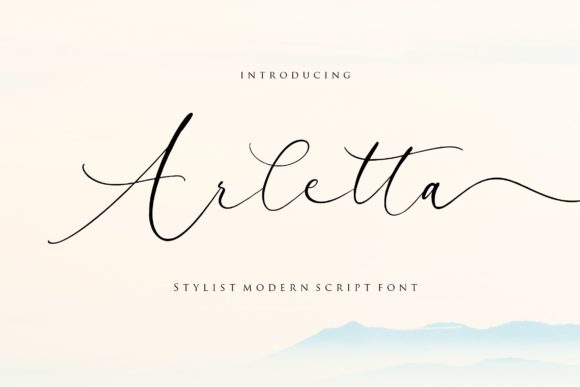
Introducing Arletta Font: A Lovely and Timeless Handwritten Font
Are you looking for a font that can add a touch of elegance and sophistication to your designs? Look no further than Arletta Font, a beautiful and timeless handwritten font that is perfect for creating eye-catching logos, branding, and quotes.
What Makes Arletta Font So Special?
Arletta Font is a unique and stunning font that is sure to make your designs stand out. Every letter has a beautiful and unique touch, which will bring your design to life. The font is carefully crafted to provide a classic and sophisticated look that is perfect for a wide range of design projects.
One of the standout features of Arletta Font is its handwritten style. The font is designed to look like it was written by hand, with a natural and fluid feel that is perfect for creating a personal and emotional connection with your audience. Whether you’re designing a logo, a brochure, or a social media post, Arletta Font is the perfect choice.
The Benefits of Using Arletta Font
There are many benefits to using Arletta Font in your designs. Here are just a few:
- Elegant and Sophisticated: Arletta Font is a classic and sophisticated font that will add a touch of elegance to your designs.
- Unique and Beautiful: Every letter in Arletta Font has a unique and beautiful touch, which will make your designs stand out.
- Perfect for Logos and Branding: Arletta Font is perfect for creating eye-catching logos and branding materials that will help you establish a strong brand identity.
Arletta Font is a beautiful and timeless handwritten font that is perfect for creating eye-catching logos, branding, and quotes. With its elegant and sophisticated style, unique and beautiful touch, and PUA encoding, Arletta Font is the perfect choice for designers who want to create stunning designs that will leave a lasting impression.
- What is Arletta Font? Arletta Font is a lovely and timeless handwritten font that is perfect for creating eye-catching logos, branding, and quotes.
- What makes Arletta Font so special? Arletta Font is special because of its elegant and sophisticated style, unique and beautiful touch, and PUA encoding.